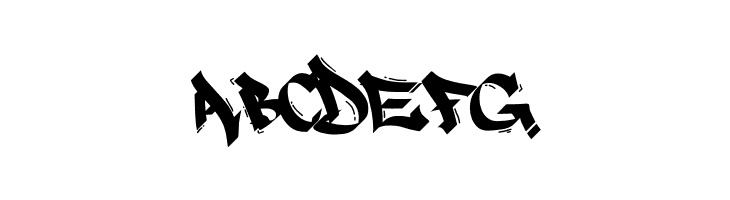
MARSNEVENEKSK Font
A bold, graffiti-inspired font with sharp, angular lines and a dynamic urban style.
MARSNEVENEKSK Clean Font
A bold, graffiti-inspired font with sharp, angular lines and dynamic strokes.
MARSNEVENEKSK Regular Font
A bold, graffiti-inspired font with sharp, angular lines and dynamic energy.